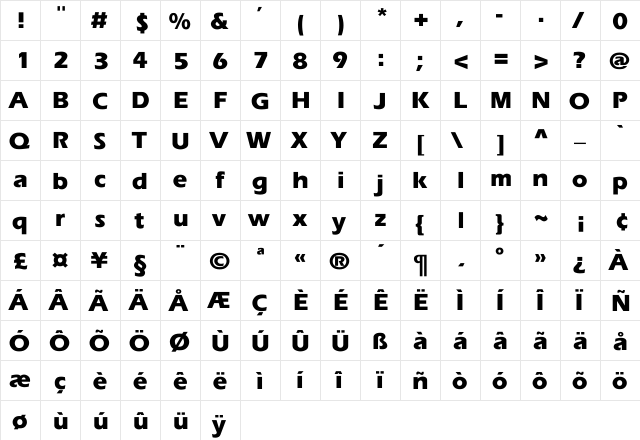
Dublin-Bold 2 Regular
Design Context for Dublin-Bold 2 Typeface
Dublin-Bold 2 is a composed and adaptable typeface that performs quietly and consistently across a wide range of design contexts. The heavy weight commands attention and anchors typographic hierarchies.